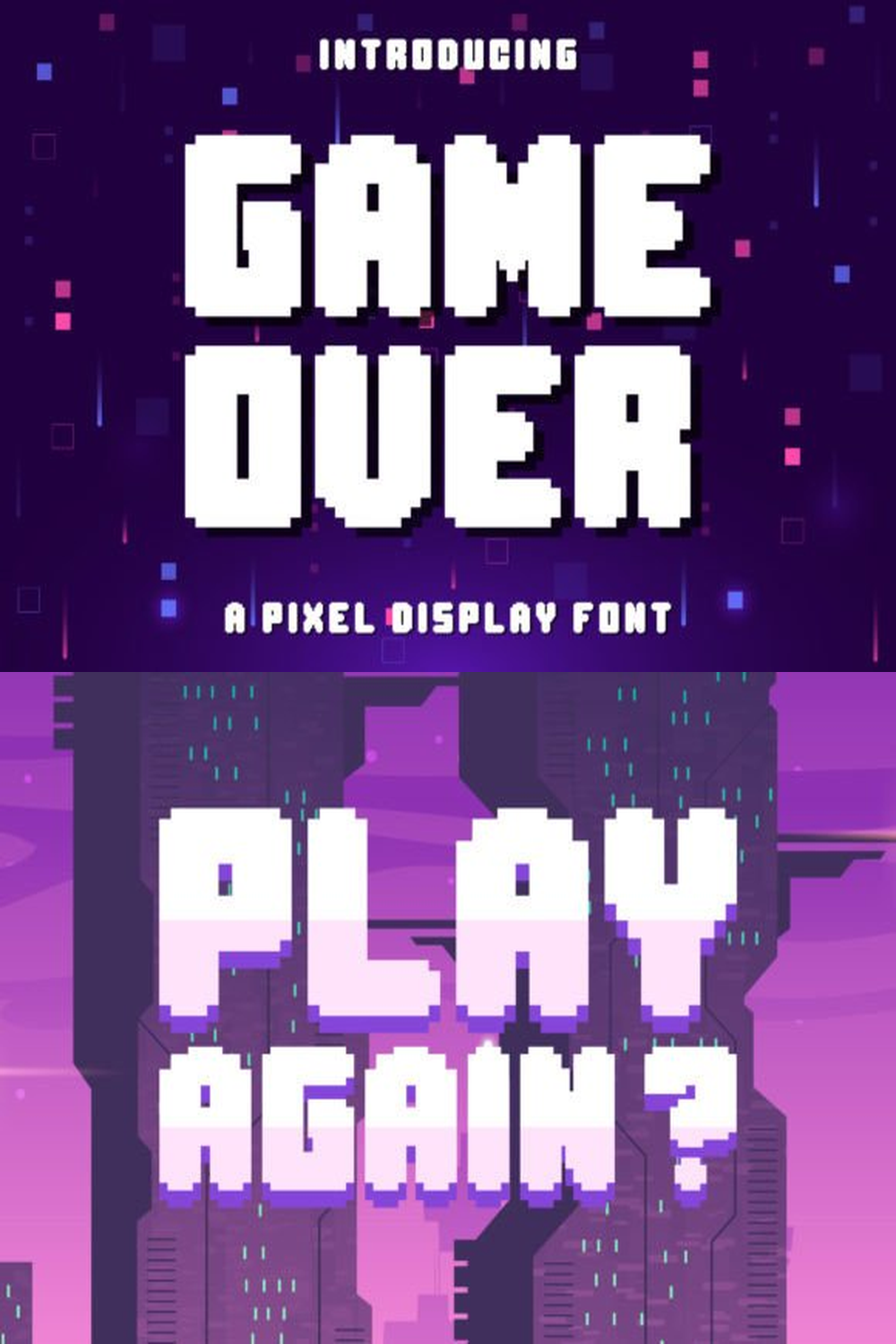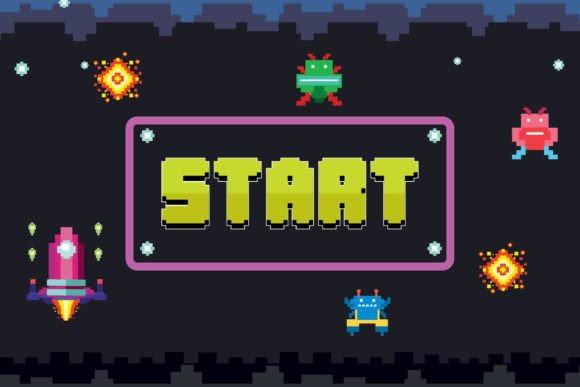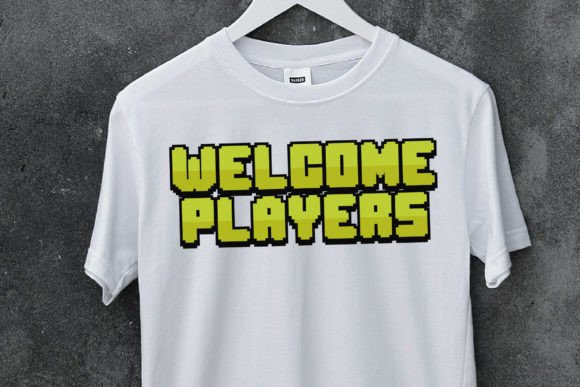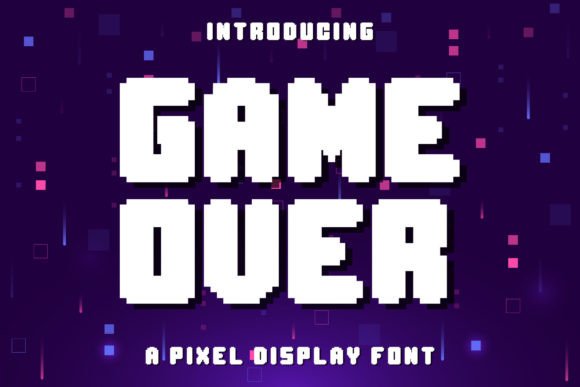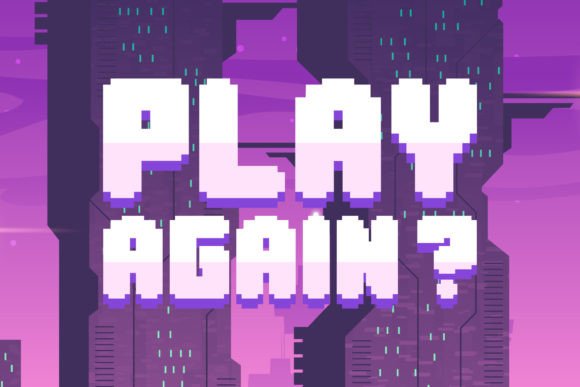
Game Over Font: A Playful Pixel Display Font for Retro Designs
About the Game over Font
We are excited to introduce Game over Font, a must-have typeface for any serious designer. Game Over is a fun and playful display font that transports your designs into a vibrant world of creativity and joy. With bold, dynamic letterforms and an adventurous spirit, it captures the essence of playfulness. Ideal for projects seeking a whimsical and lively aesthetic, Game Over infuses a delightful and imaginative flair into your creative expressions.
Game Over excels as a headline font for playful brands, posters, and packaging design. Its bold forms command attention, making it perfect for grabbing the viewer’s eye in short bursts of text. However, its highly stylized nature makes it unsuitable for body copy or UI elements; the intricate details would be illegible at smaller sizes and would negatively impact readability in extended text blocks.
The font’s energetic personality pairs well with clean sans-serif fonts like Open Sans for body text, creating a balanced contrast between playful display and legible body copy. Alternatively, a classic serif like Garamond could provide a sophisticated counterpoint, enhancing the fun, almost retro vibe.
Its core personality is bold and playful, but not overly childish. Therefore, brands targeting a younger audience that value fun and originality, such as game developers, toy companies, or event organizers, will find it highly effective.